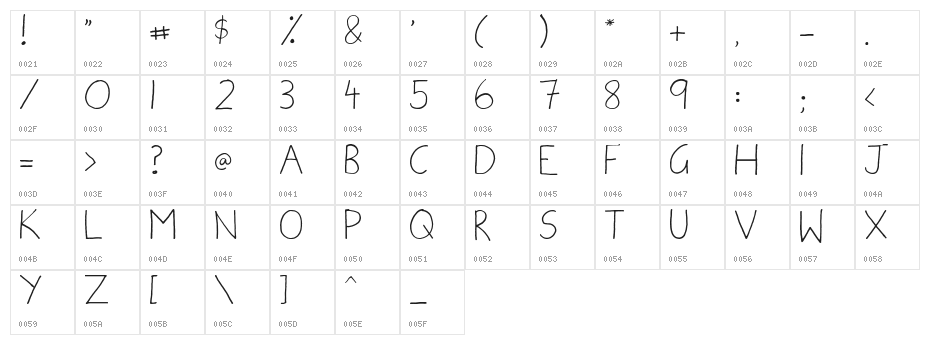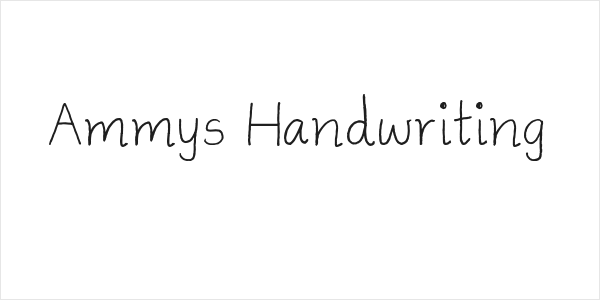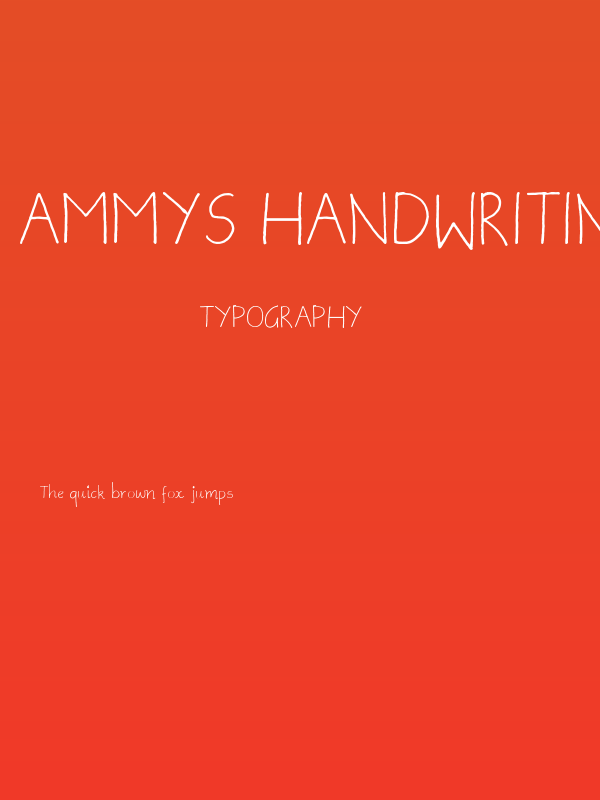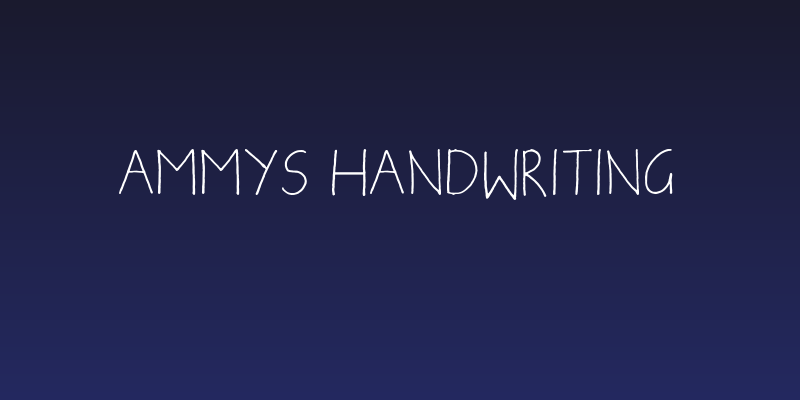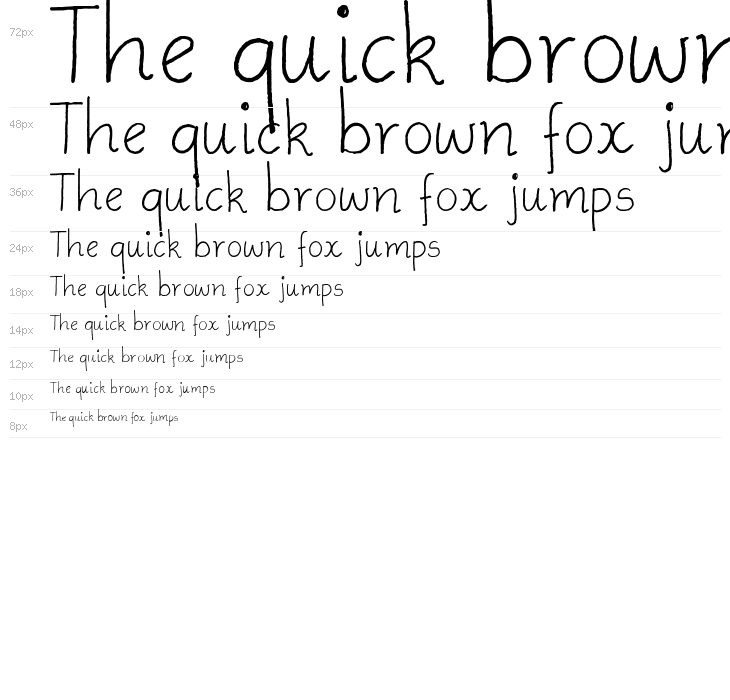
Ammys Handwriting Font
Ammys Handwriting Description
This font features a playful and casual handwritten style, characterized by its irregular strokes and slightly uneven baseline. The letters have a natural flow, mimicking the spontaneity of real handwriting. Uppercase letters are tall and narrow, while lowercase letters are more rounded and open. The numerals are consistent with the overall style, maintaining a friendly and approachable appearance. Special characters are included, adding versatility to the font. The overall impression is informal and personal, making it suitable for projects that require a human touch.
| Use Case | Logos, Invitations, Personal notes |
| Proposed Projects | Ideal for personal notes, greeting cards, informal invitations, and creative projects that benefit from a personal touch. |